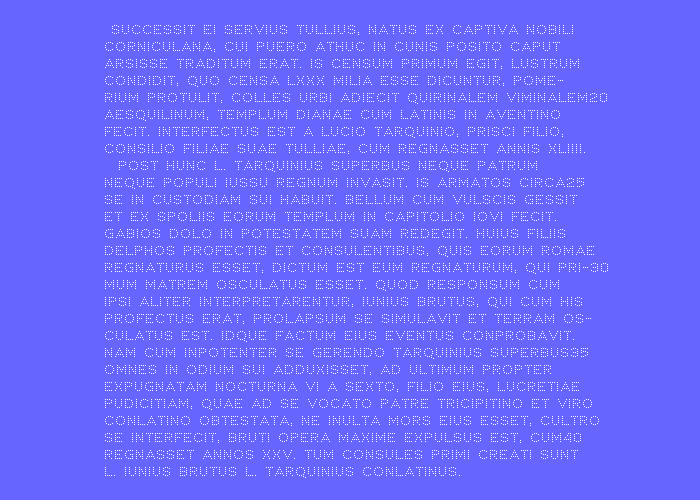
@Goatmeal and Elmoyenique: Thank you for your comments and generous ratings. It is my second work in the dotted-pixel niche. Lux Aeterna supports Basic Latin, Latin-1 Supplement, and Cyrillic. It borders on a miracle I could manage the vulgar fractions at such small dimensions. Hail to the pixels!
Latin sample text: Titus Livius, Periochae Librorum A. U. C. 1b.1 (excerpt).
Extended Latin and Cyrillic character set.
@Goatmeal and Elmoyenique: Thank you for your comments and generous ratings. It is my second work in the dotted-pixel niche. Lux Aeterna supports Basic Latin, Latin-1 Supplement, and Cyrillic. It borders on a miracle I could manage the vulgar fractions at such small dimensions. Hail to the pixels!
As in Umbriel, I really like this approach. The results are impressive, even more so at this smaller scale!